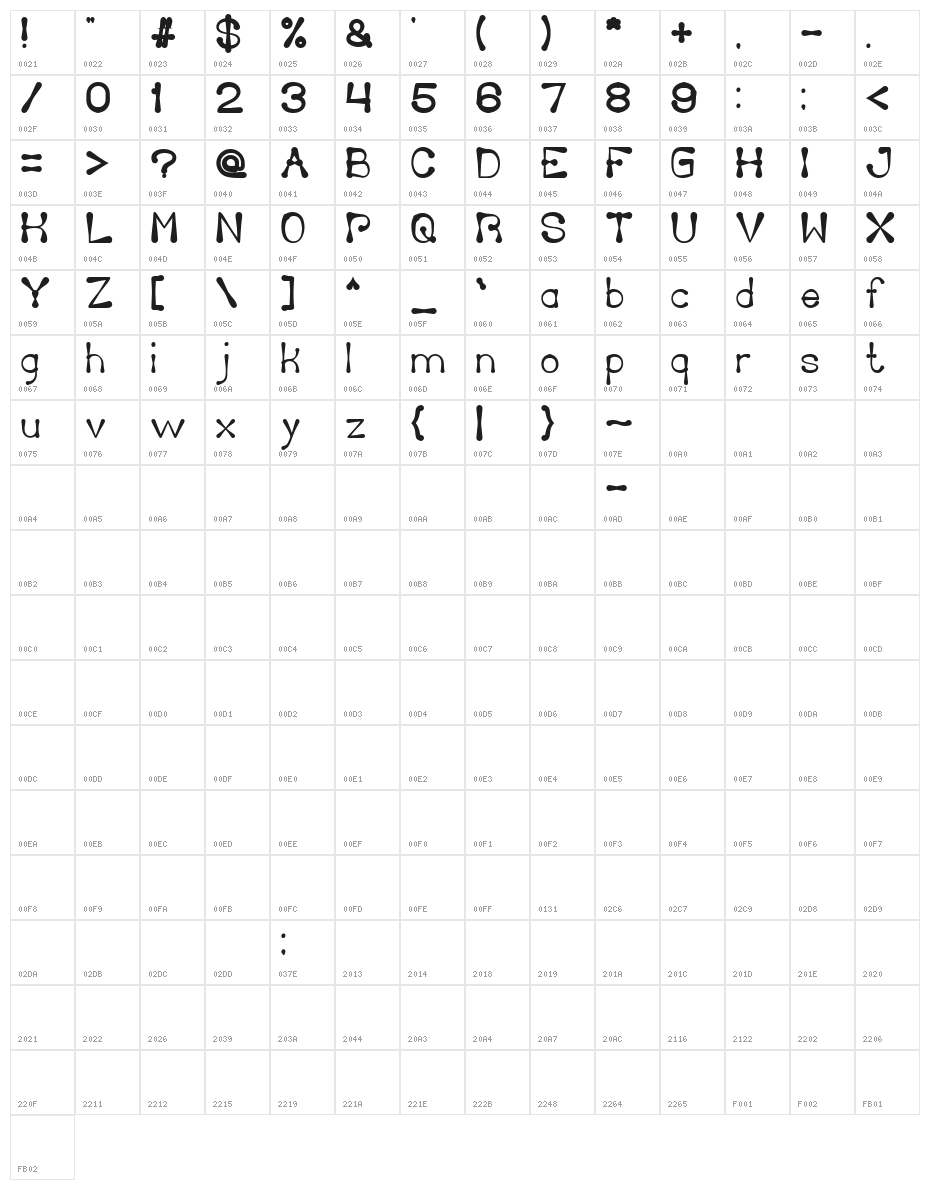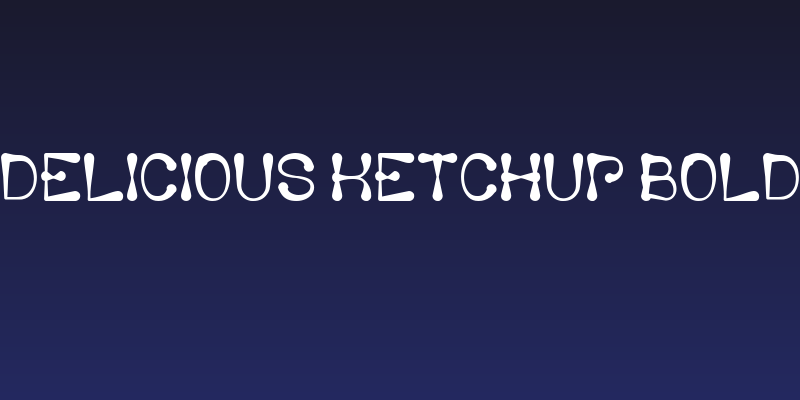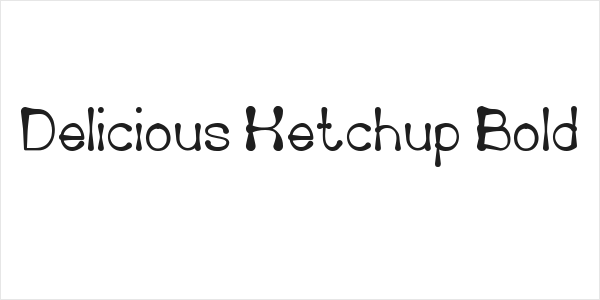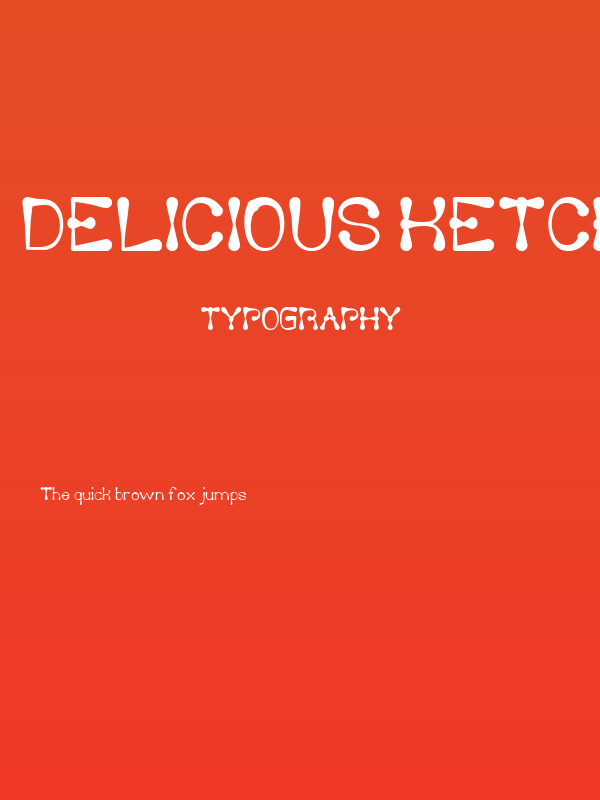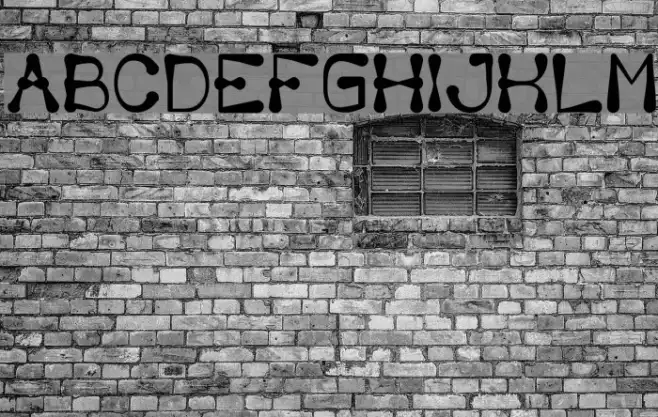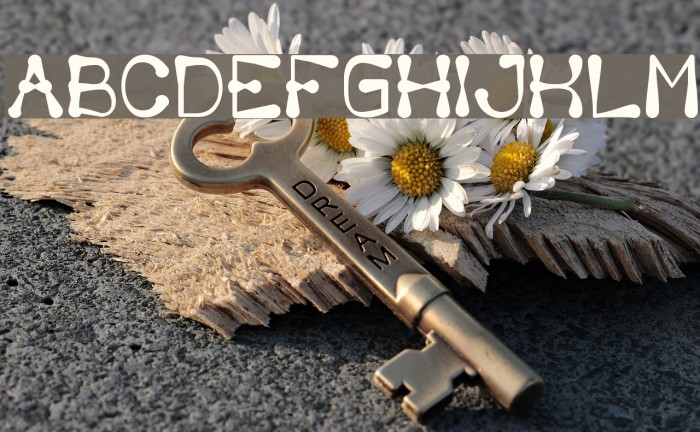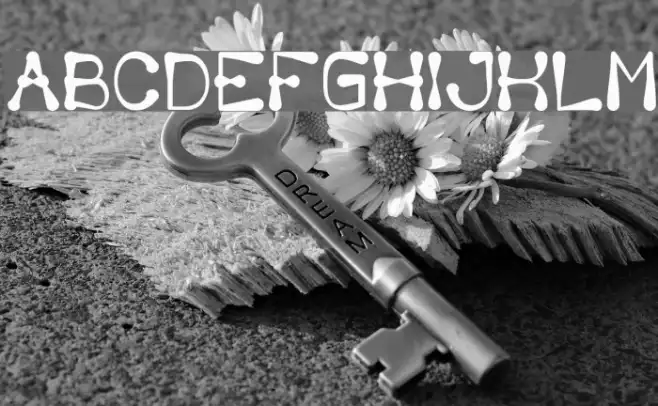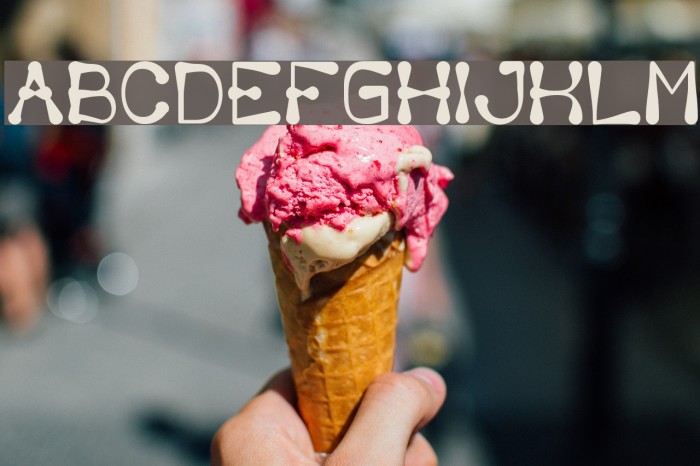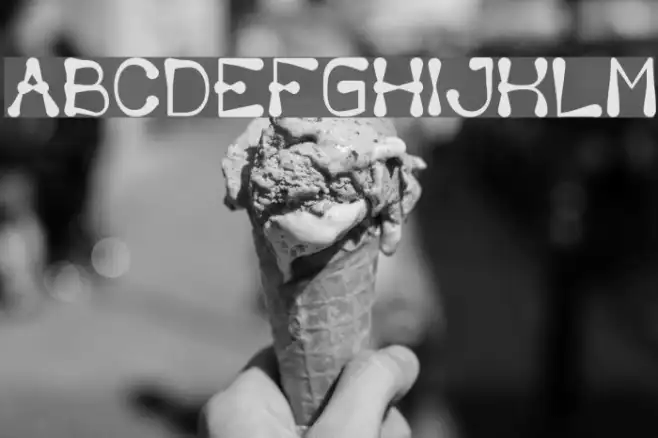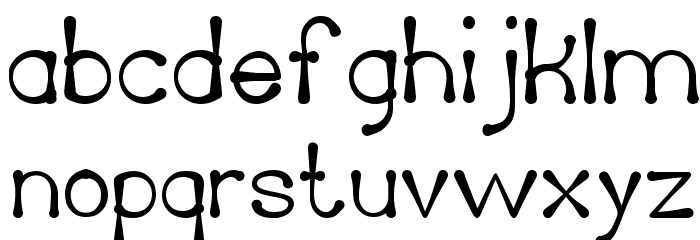
Delicious Ketchup Bold Font
Delicious Ketchup Bold Description
This font features a playful and bold design with rounded, bubbly characters that give it a fun and informal appearance. The letters have a hand-drawn quality, with varying stroke thickness that adds to its whimsical charm. The uppercase and lowercase letters maintain a consistent style, with slightly exaggerated curves and loops. The numbers and special characters are equally expressive, making the font versatile for creative projects. Its unique style is reminiscent of casual handwriting, making it suitable for designs that require a touch of personality and flair.